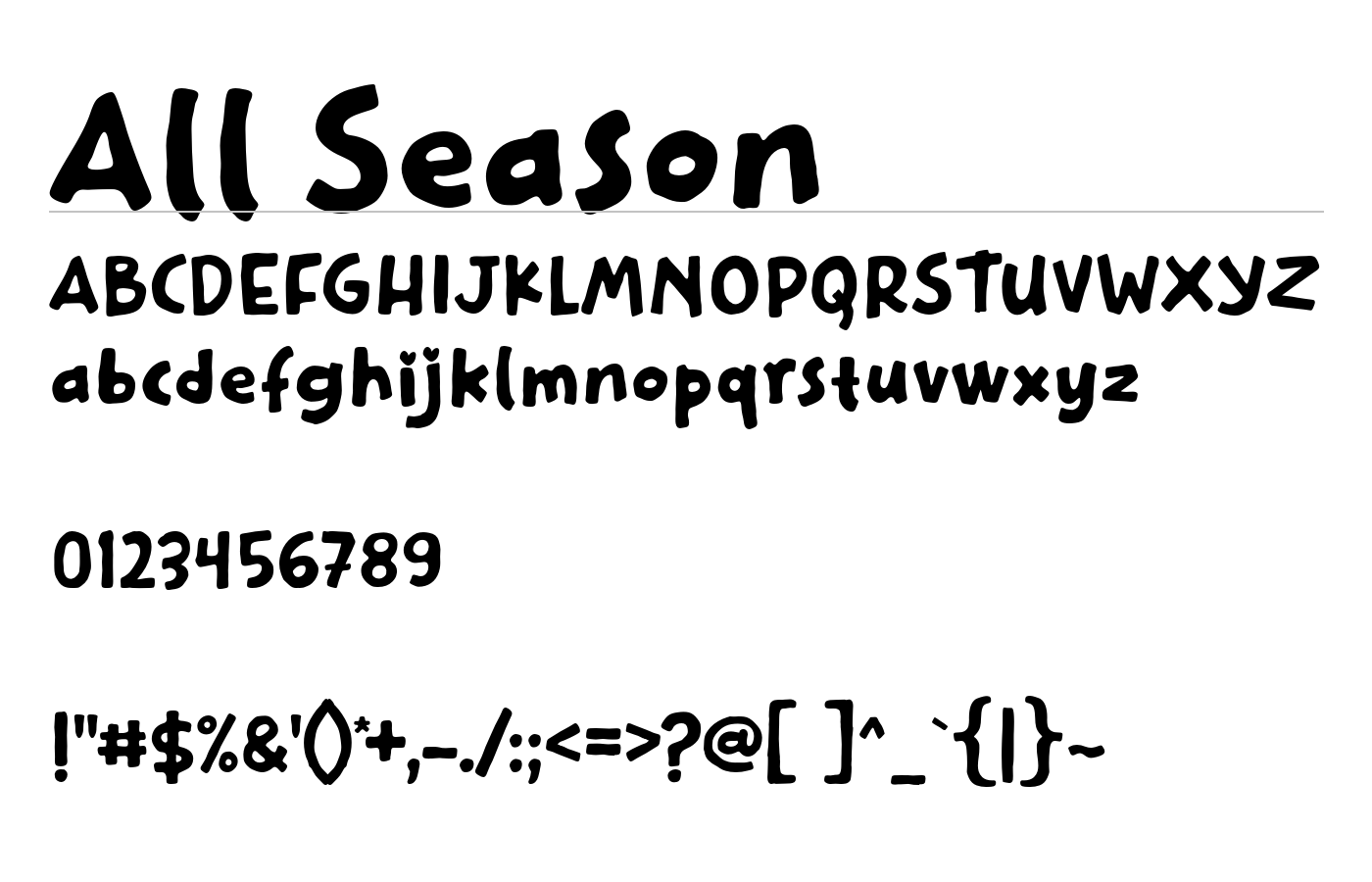
All Season Font is a playful and informal sans serif typeface with a slightly uneven, hand-drawn feel that adds warmth and character to any design. Its bold weight and rounded, quirky letterforms make it ideal for fun branding, children’s materials, or casual headlines where a friendly, approachable tone is desired. This font works well in creative projects and packaging where personality and a handcrafted vibe are important.
All Season Font
About All Season Font
| Font family | All Season Font |
| Designer | Keithzo; Situjuh Nazara |